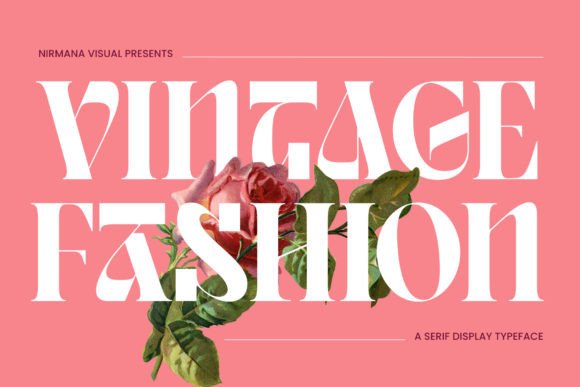
Welcome to the world of Vintage Fashion Font, the Best Font for Vintage design projects!
Created by Sigit Dwipa, this elegant and sophisticated serif font family draws inspiration from the Renaissance design era, exuding a timeless charm that never goes out of style.
With its beautiful typographic harmony, Vintage Fashion Font is perfect for a diverse range of design projects, including logos and branding, social media posts, advertisements, and product designs. Its classic yet contemporary look and feel will elevate the aesthetic of any design, adding a touch of vintage glamour and sophistication that will captivate and delight your audience.
Vintage Fashion Font is a true embodiment of quality and craftsmanship. Its meticulous design and attention to detail make it a standout choice for any designer looking to add a touch of timeless elegance to their work.
Whether you are creating a logo for your business or designing a product, Vintage Fashion Font will help you stand out from the crowd with its unique and eye-catching style.